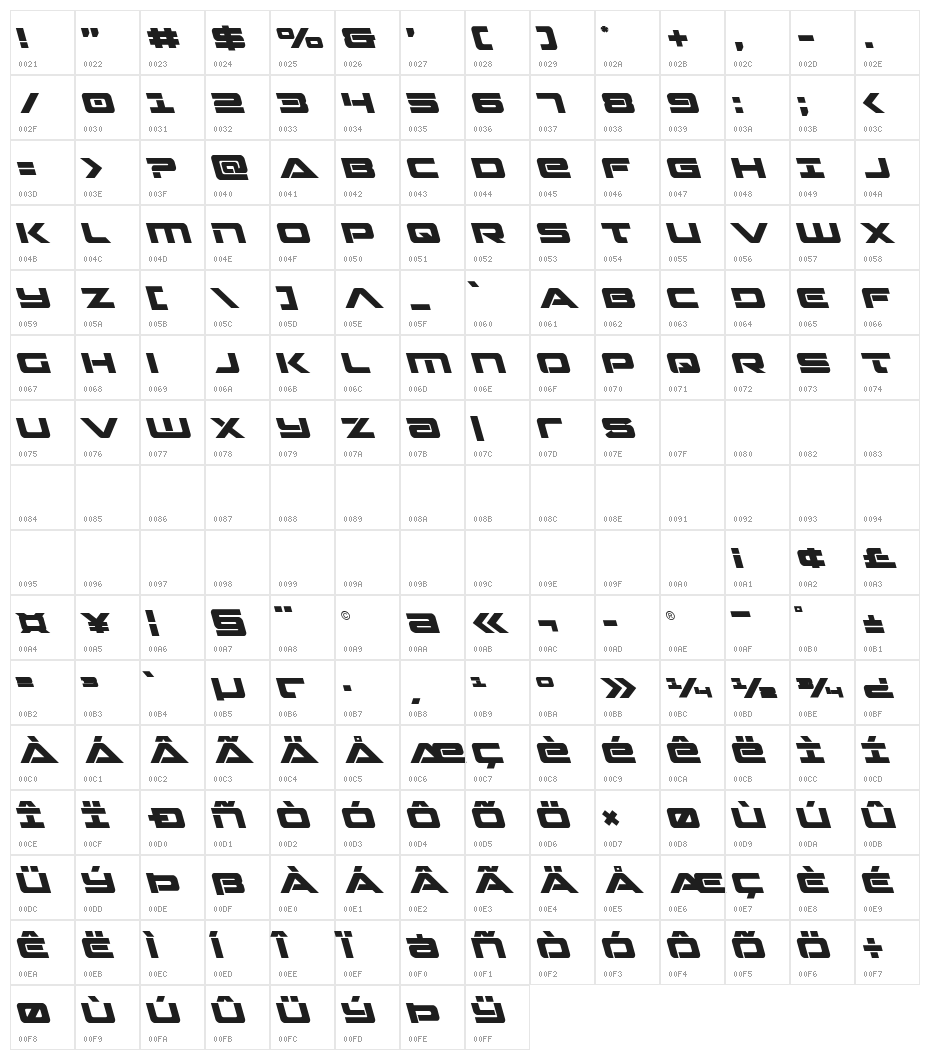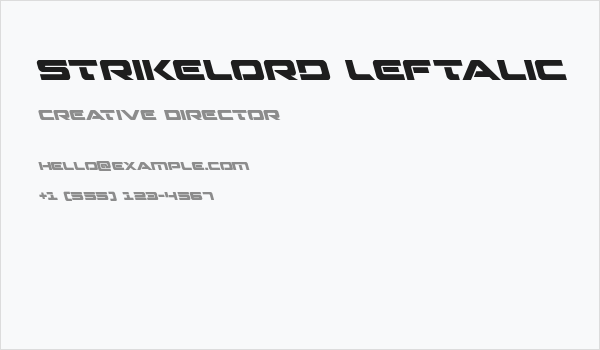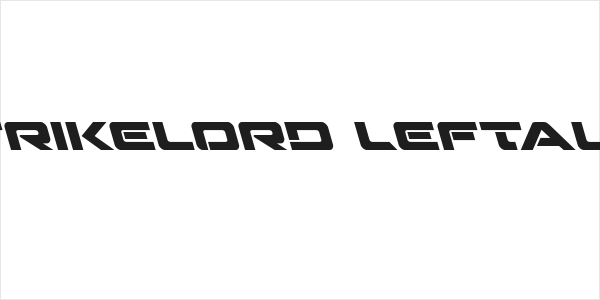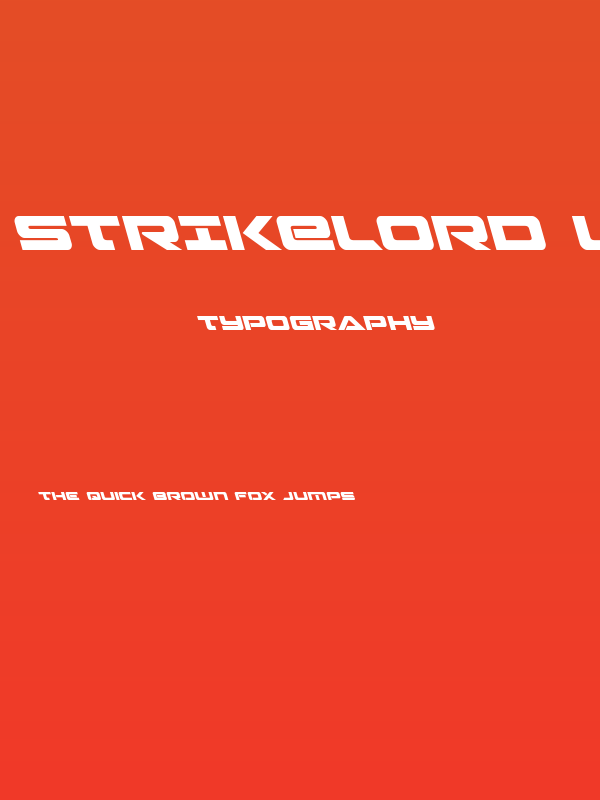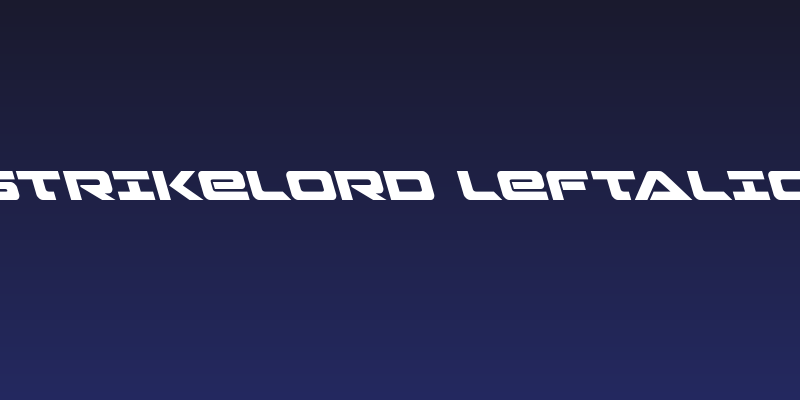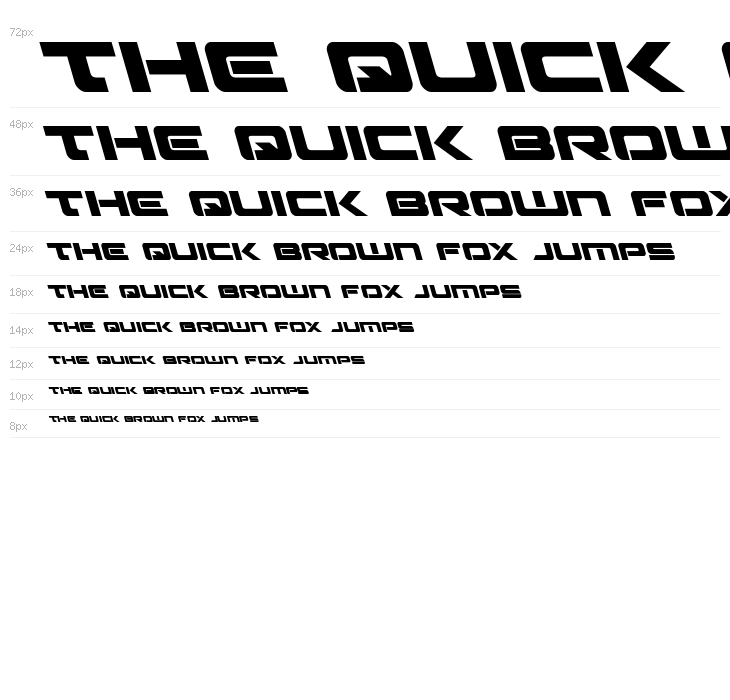
Strikelord Leftalic Font
Strikelord Leftalic Description
This font features a bold, futuristic design with sharp, angular lines and a distinct italic slant to the left. The characters are wide and have a strong presence, making them suitable for impactful headlines or titles. The geometric shapes give it a modern and edgy feel, while the consistent stroke width adds to its boldness. The font includes uppercase and lowercase letters, numbers, and a variety of special characters, all maintaining the same stylistic approach. Its unique style makes it stand out, perfect for projects that require a modern and dynamic look.
| Proposed Projects | Ideal for sci-fi themed designs, video game titles, tech branding, and dynamic posters. |